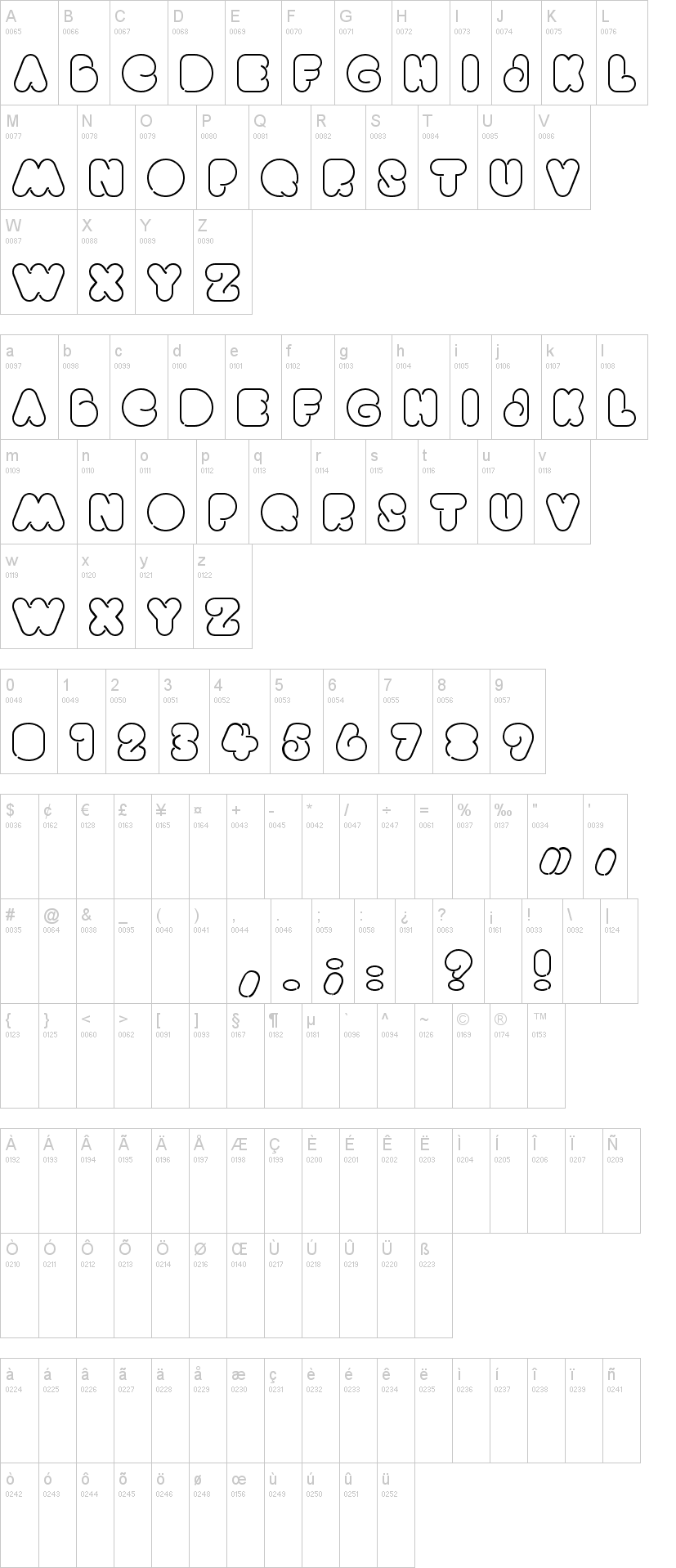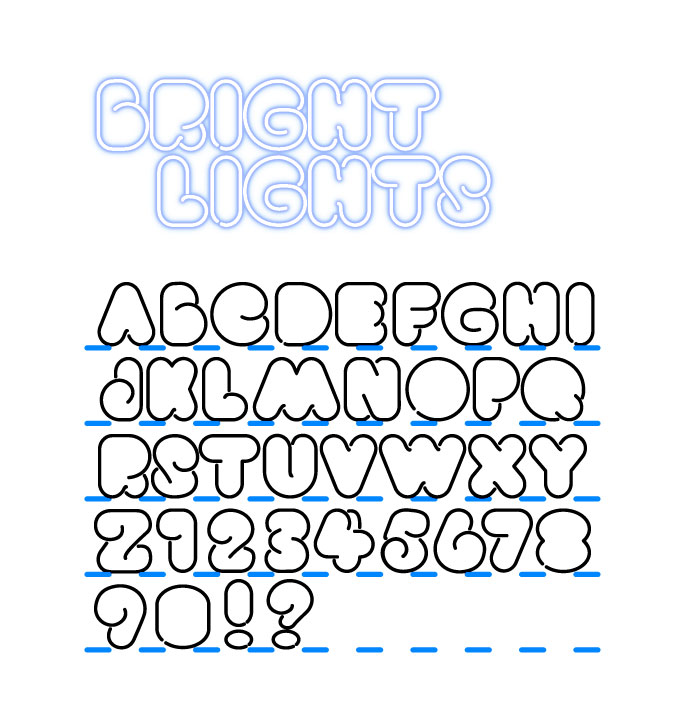
Note of the authorBeen fascinated with these Marshmallow-ish typefaces for awhile; decided to draw my own version. Inspired by the quirks and joints of neon-light signages, these characteristics which gives this display type its unique personality and helps make it more legible.